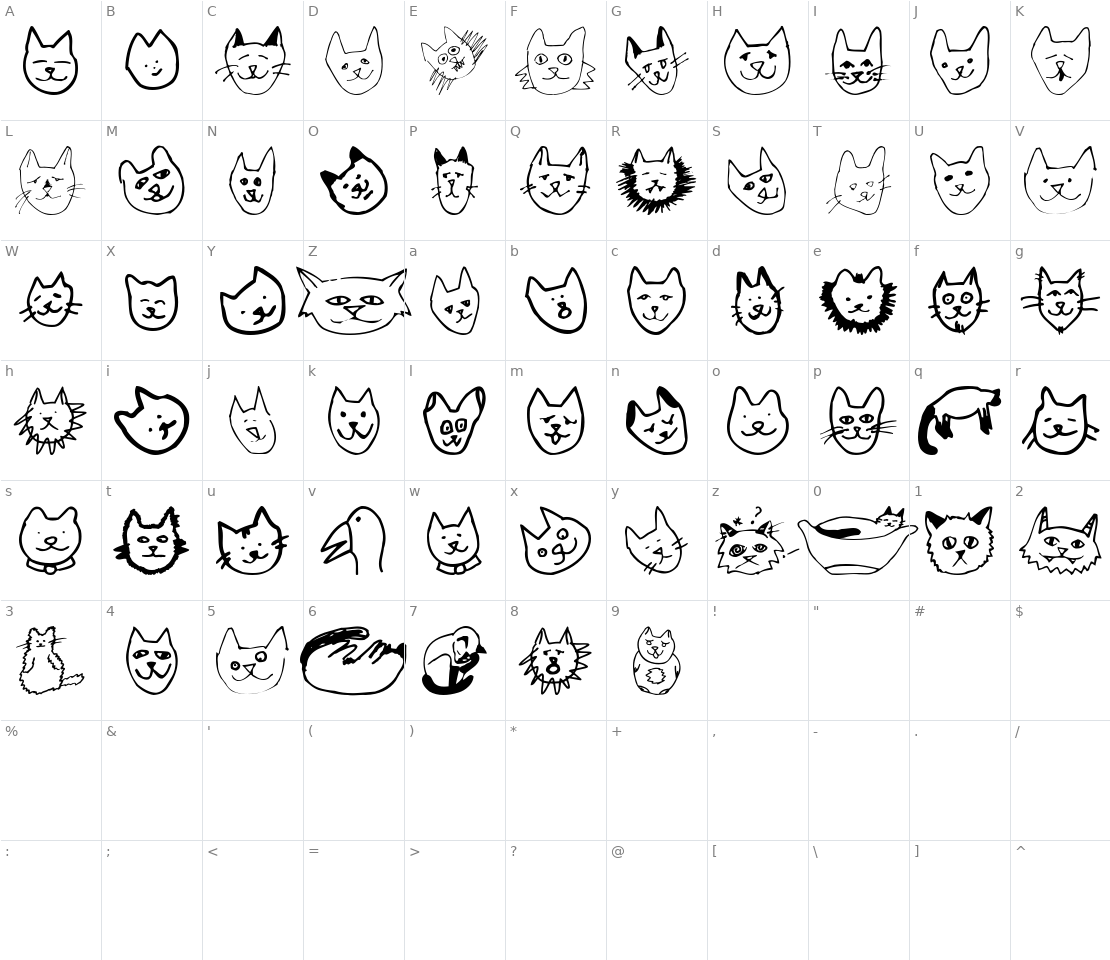
Linus Face
Linus Face is a novelty dingbat font from Astigmatic One Eye Typographic Institute filled with hand-drawn cat faces in various expressions, each with a loose, doodled quality that feels genuinely sketched rather than digitally polished. The characters range from cute to goofy, making it useful for stickers, children's projects, greeting cards, or anywhere a little feline personality is needed.